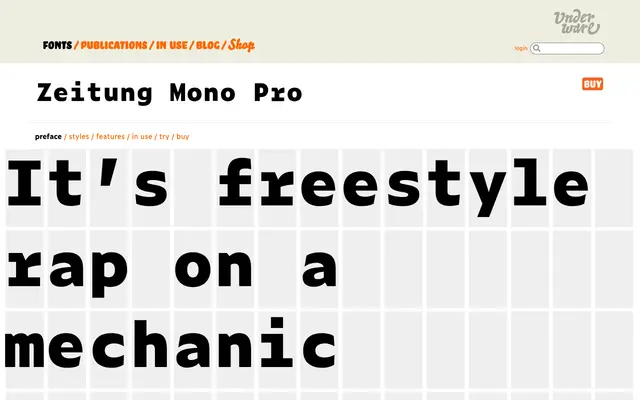
Zeitung Mono
A monospaced member of Underware's Zeitung family, designed for editorial and technical uses where fixed-width spacing is required.
Zeitung Mono extends the Zeitung type family from Underware into monospaced territory. As part of a family that draws on newspaper and editorial traditions, the mono variant carries those typographic references into fixed-width contexts. The page content available was insufficient to confirm precise weights, italics or full language support.
The name explicitly identifies this as a monospaced typeface; 'Mono' in the family name and its placement within Underware's Zeitung family confirms its classification as a monospaced variant.